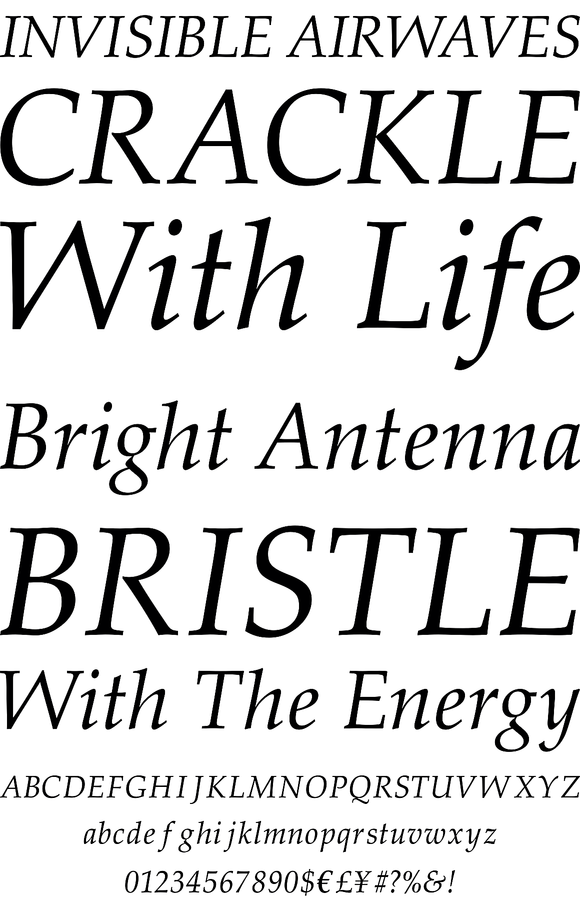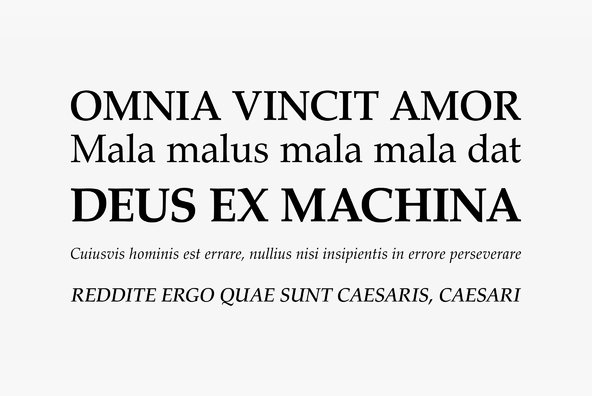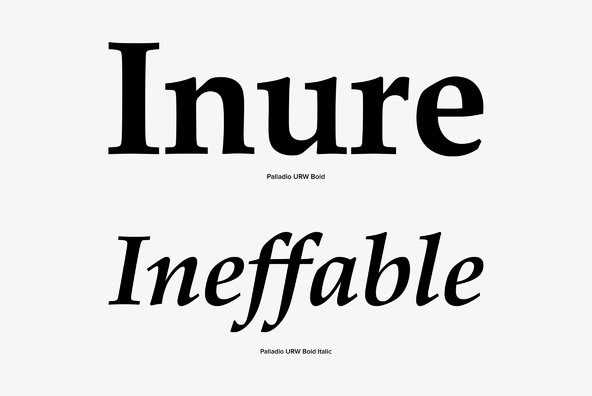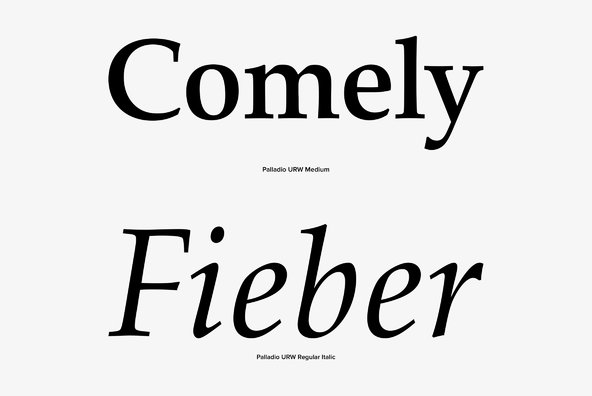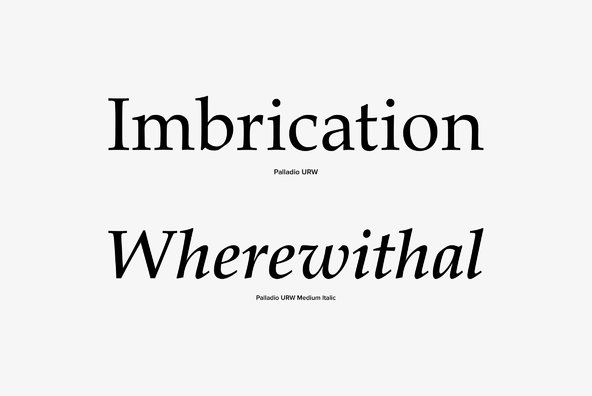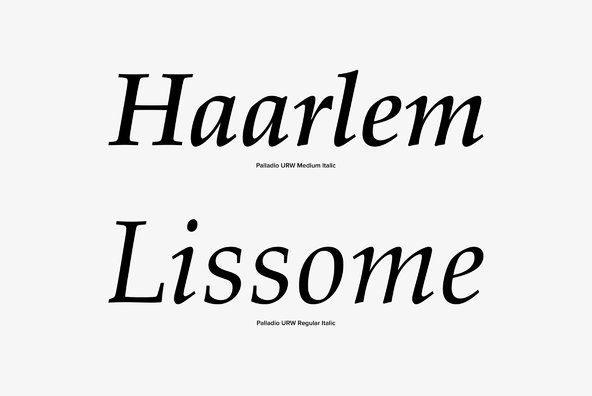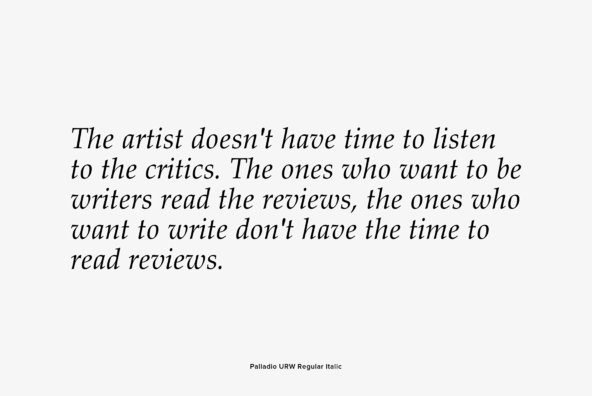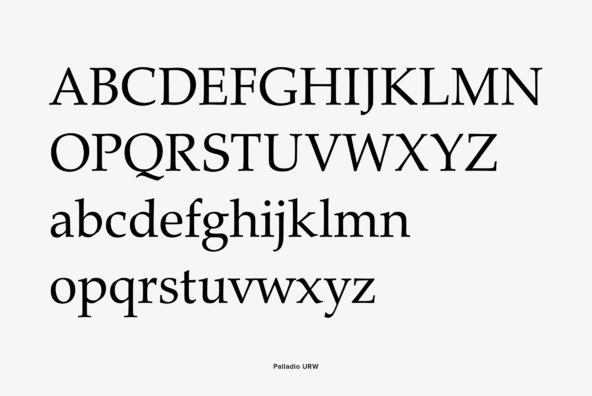
URW Palladio Font
URW Palladio (or known as Palatino) is the name of this typeface family that began as an old style serif typeface designed by Hermann Zapf initially released in 1948.
In 1999, Zapf revised Palatino for Linotype and Microsoft, called Palatino Linotype. The revised family incorporated extended Latin, Greek, and Cyrillic character sets.
Under the collaboration of Zapf and Akira Kobayashi, the Palatino typeface family was expanded. Linotype released the Palatino nova, Palatino Sans, and Palatino Sans Informal families, expanding the Palatino typeface families to include humanist sans-serif typefaces. Palatino nova was released in 2005, while the others were released in 2006.
Zapf worked with URW on this typeface, but Linotype retains the license to the name Palatino.